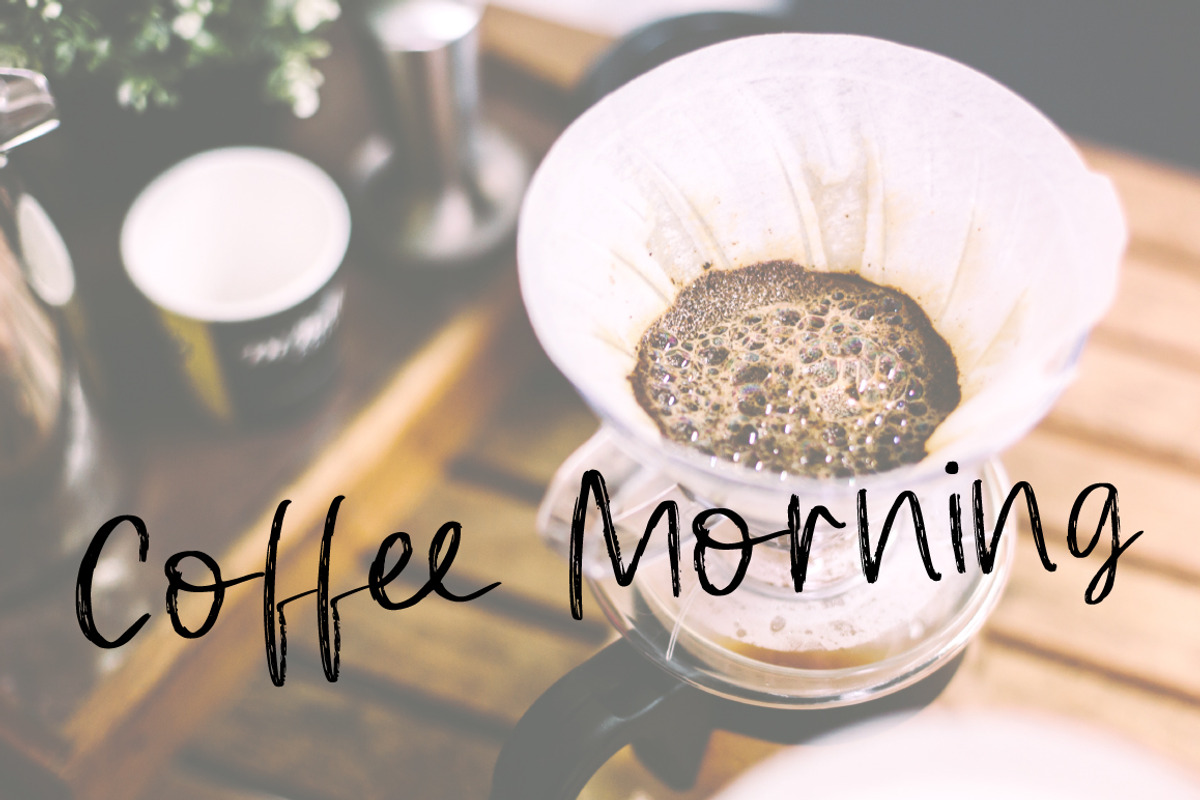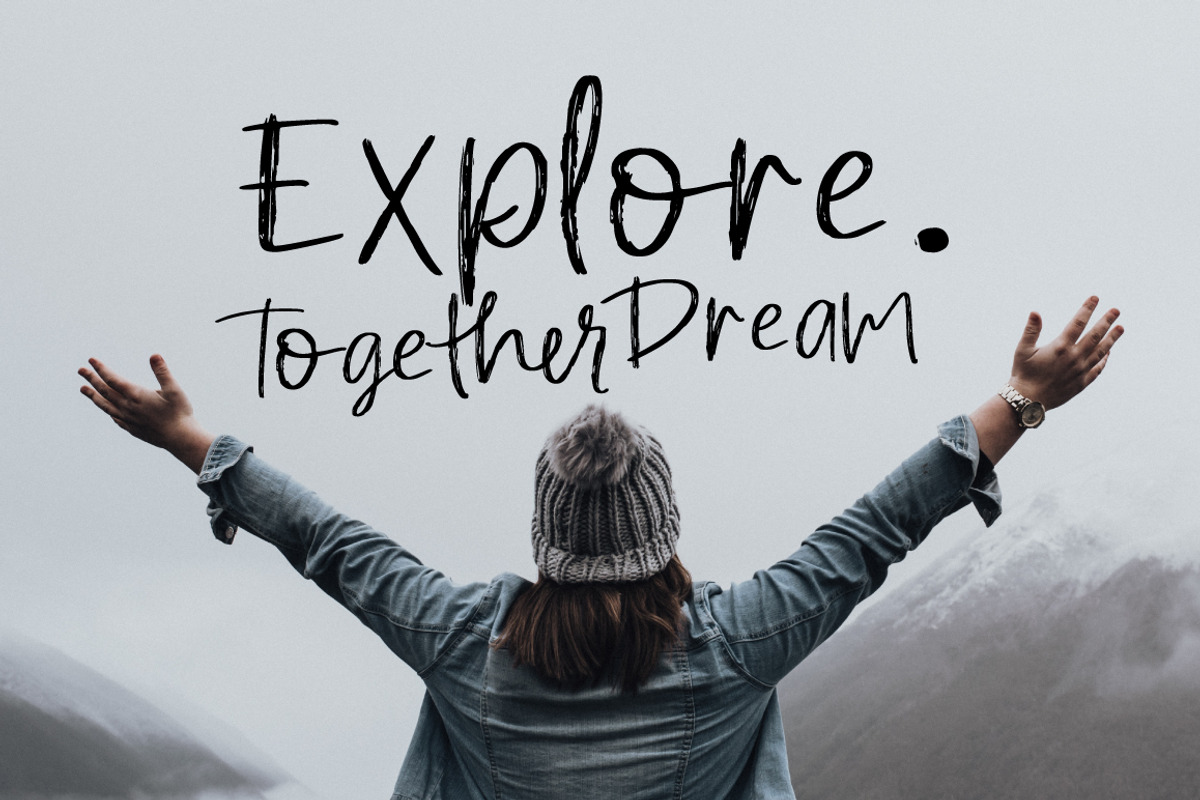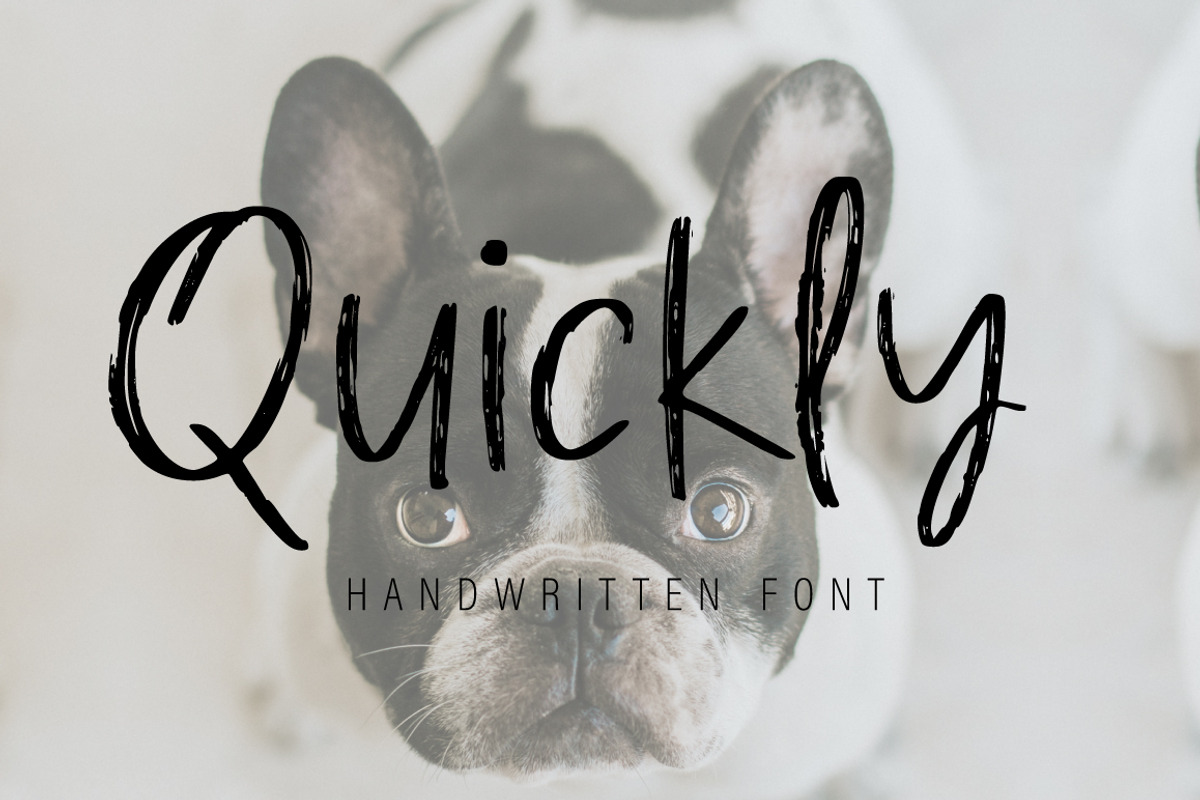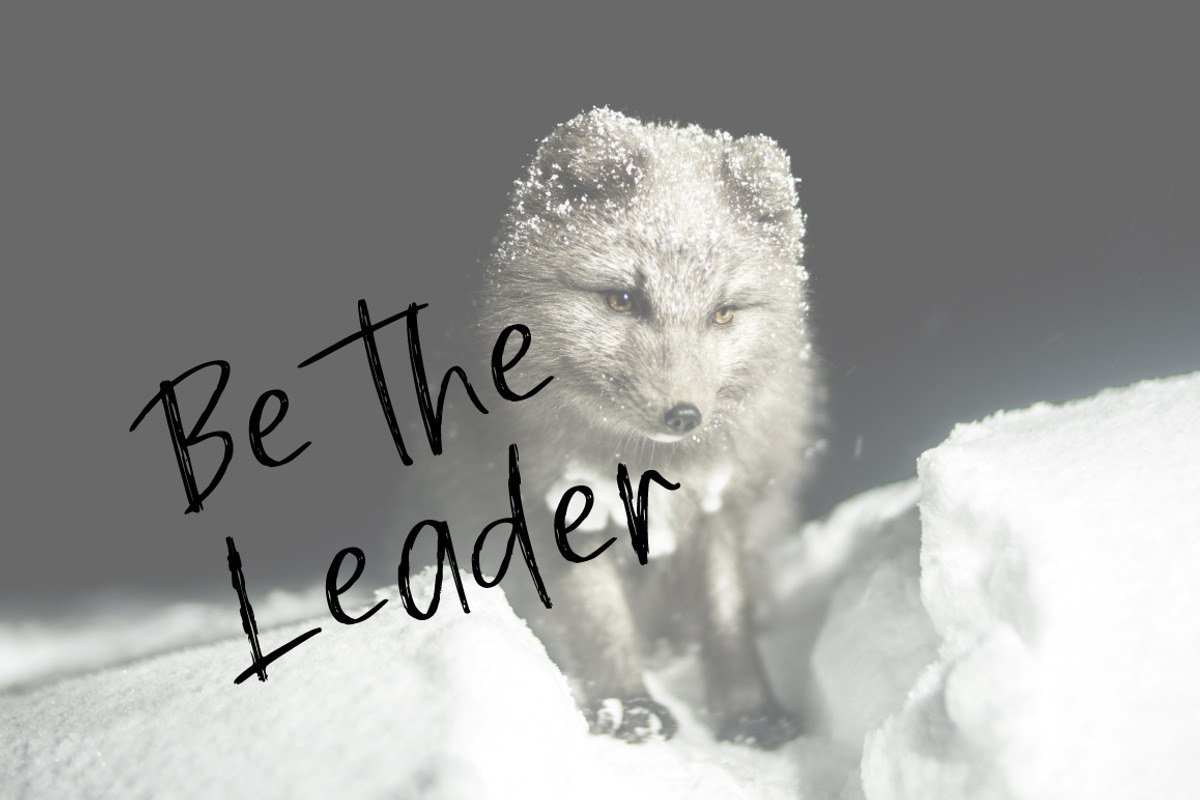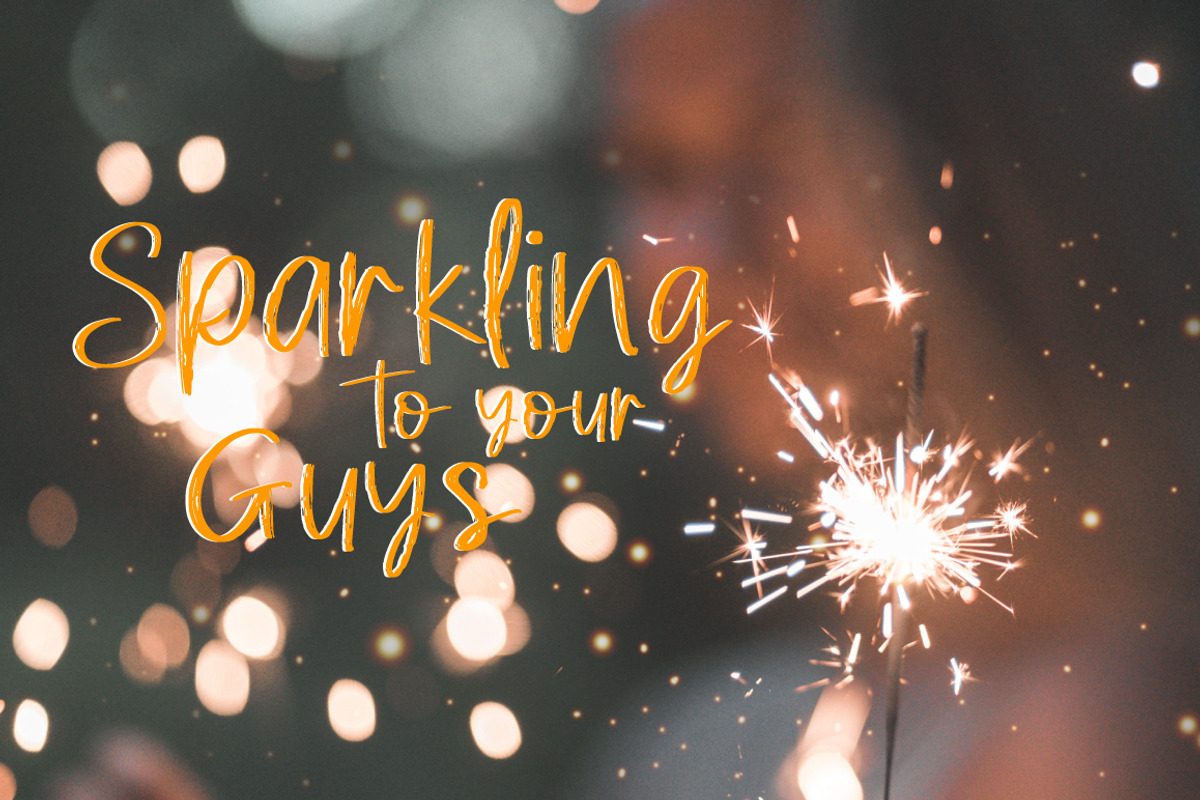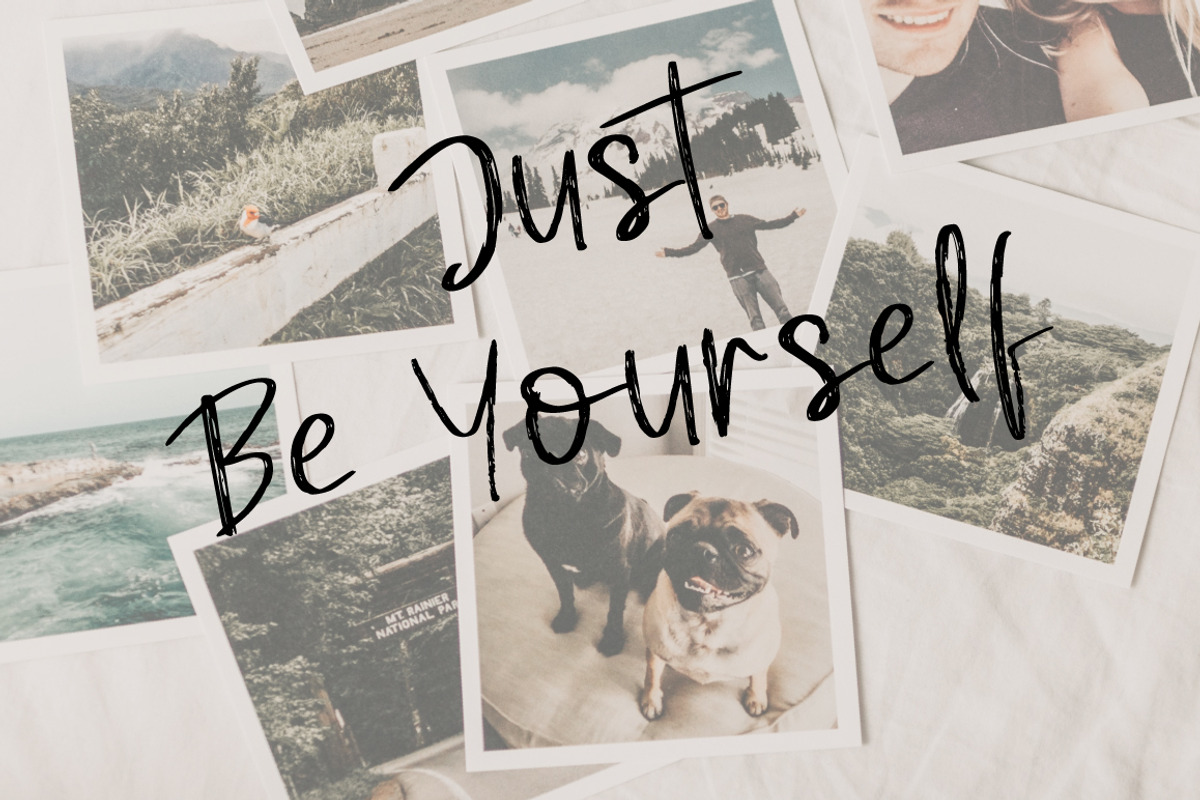
Quickly | Handwritten Font
Quickly is a happily font for every project , designed to combine perfectly and allow you to create stunning hand-lettering quickly and easily
I had so proud to present this font! It's fun and playful, with lots of ligatures to play with. Mix and match lowercase and uppercase letters for a unique look
- It's fun and playful, with lots of ligatures to play with.
Quickly | Handwritten Font by Artstudio fits naturally into Branding, posters, packaging, typography.